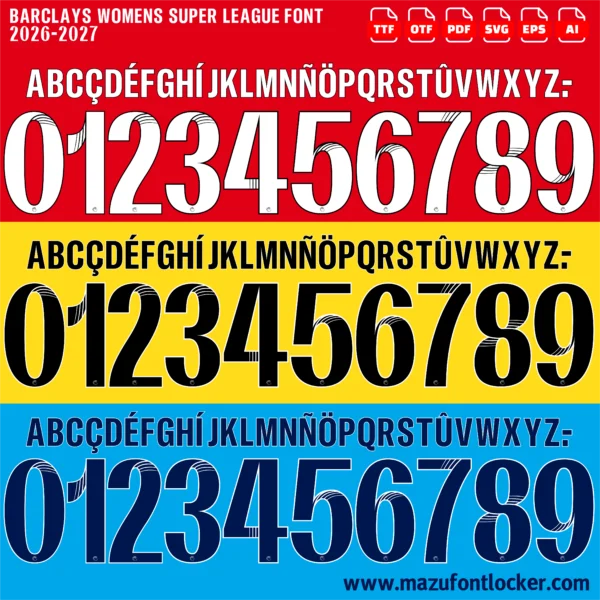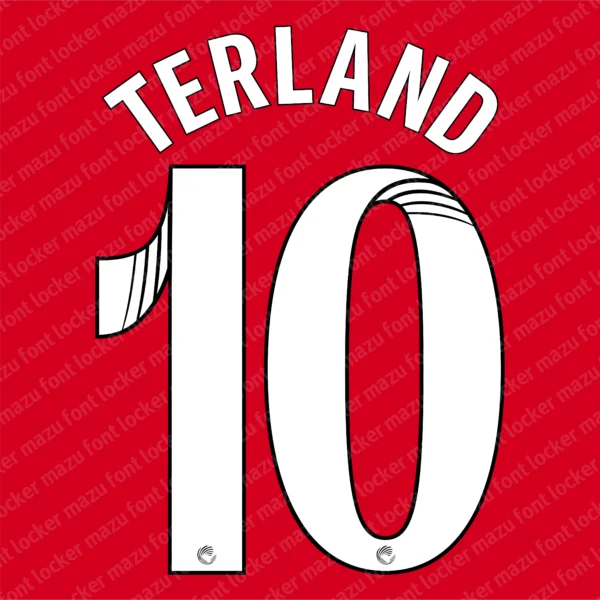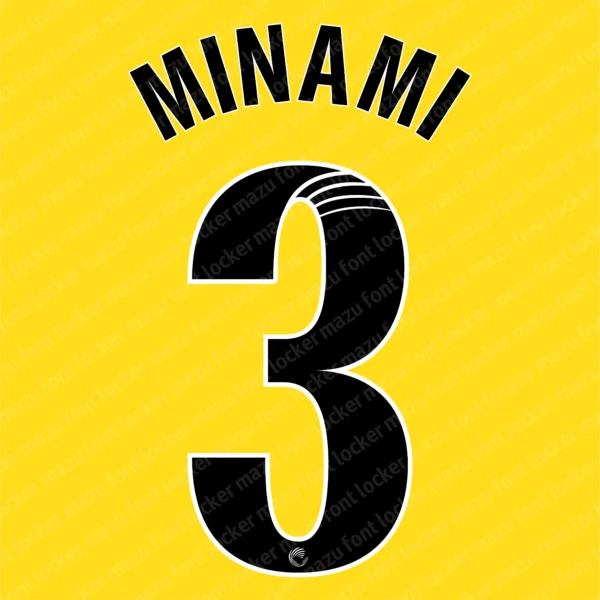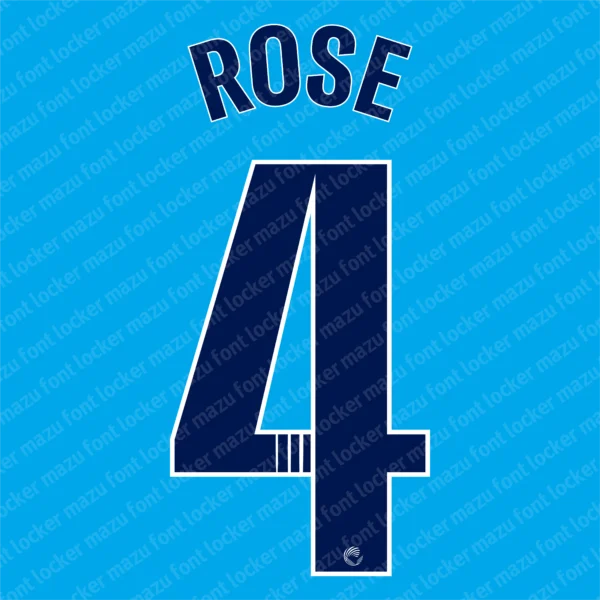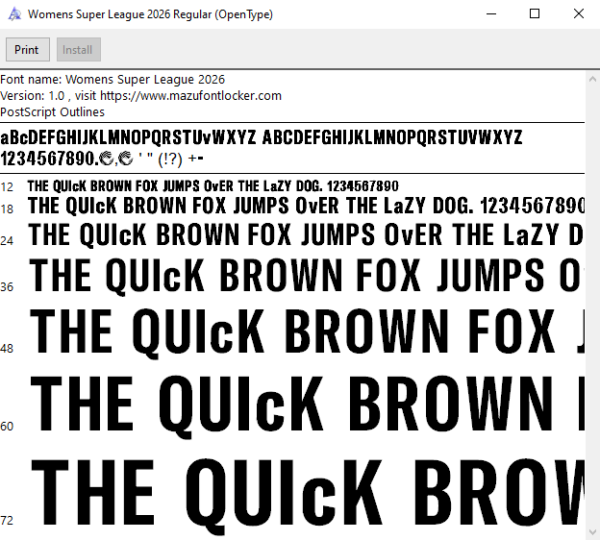
Barclays Women’s Super League 2026 Font Vector – Exceptional Championship Typeface
The Barclays Women’s Super League 2026 Font Vector is a premium typeface that accurately recreates the official match lettering used throughout the 2026 Barclays Women’s Super League season. This high-quality vector font kit captures the modern, professional, and dynamic typography seen on the jerseys of England’s top women’s football clubs.
Designed for professional designers, football enthusiasts, kit creators, and collectors, the Barclays Women’s Super League 2026 Font Vector delivers authentic results for creating realistic jersey mockups, women’s football merchandise, social media graphics, matchday artwork, and club-inspired designs. The font perfectly reflects the elite identity of the Women’s Super League.
Why Choose Barclays Women’s Super League 2026 Font Vector
This font stands out because of its accurate recreation of the official player names and numbers worn during the 2026 Women’s Super League campaign. Every character has been carefully crafted to match the league’s official lettering style, ensuring professional-quality results for both digital and print projects.
Whether you are creating realistic football kit presentations, fan artwork, or women’s football-themed content, the Barclays Women’s Super League 2026 Font Vector delivers authentic league-level typography.
The letterforms feature a modern, clean, and highly legible design that reflects the contemporary image of the Women’s Super League. Sharp edges, balanced proportions, and excellent readability ensure the font performs beautifully across all applications.
The numerals feature bold construction and professional detailing that accurately replicate the official squad numbers used during the 2026 season. The vector format guarantees crisp scaling from small digital graphics to large-format printing.
- Complete uppercase A–Z and numbers 0–9 in authentic Barclays Women’s Super League 2026 style
- Special WSL league logo glyph – Press the “:” (Colon mark) symbol to insert the logo
- Multilingual Latin character support including diacritics
- Includes league logo glyph support for enhanced authenticity
The Barclays Women’s Super League 2026 Font Vector is an independently designed typeface package created to replicate the official shirt lettering style used during the 2026 season. It is ideal for football-inspired artwork, jersey customization, fan projects, sports graphics, and creative design work.